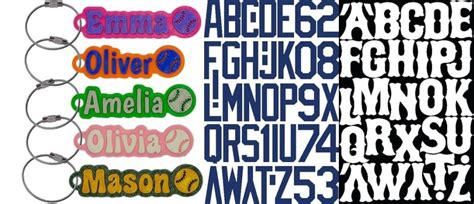
OSCPSSI Baseball Font: Your Ultimate Guide
Hey guys! Ever wondered about the awesome fonts used in baseball, especially the ones that scream “classic” and “authentic”? Well, you’re in the right place! Today, we’re diving deep into the world of the OSCPSSI Baseball Font , a popular choice for everything from team logos to jerseys. We’ll explore what makes this font so special, where you can find it (and maybe even snag it for free!), and how to use it like a pro. Whether you’re a designer, a baseball enthusiast, or just someone who appreciates a good font, this guide is for you. Let’s get started and knock this out of the park!
What is the OSCPSSI Baseball Font? Decoding the Design
Alright, let’s get down to brass tacks: what is the OSCPSSI Baseball Font? Essentially, it’s a specific style of typeface designed to evoke the spirit and look of classic baseball. Think of those old-school jerseys, the stadium signage, and the logos that have been around for decades. This font aims to capture that vintage aesthetic. It’s usually a serif or slab-serif font , meaning it has those little “feet” or “serifs” at the ends of the letter strokes. This gives it a sense of weight, stability, and, of course, that retro vibe. It’s often bold, which makes it easily readable from a distance – perfect for anything that needs to be seen across a baseball field or on a screen. The OSCPSSI font often includes variations and a distinct shape to help to recreate the authentic baseball look. This allows designers the freedom to create team branding, logos, and jerseys that instantly resonate with the sport’s traditions. Many variations of the font are available, but they all share the fundamental design principles that create this feeling. Because it is created with the visual elements of baseball in mind, this means it has the right style for jerseys, merchandise, and digital content. The goal is simple, to capture the character and history of the game. So, if you are looking to design some baseball themed material, then this font is for you. The use of the OSCPSSI Baseball Font extends beyond basic text. Its design has the capacity to include customization with different weights, styles, and added features, making it a flexible tool. This adaptability makes it a favorite for all applications, from marketing to fan merchandise.
The Key Characteristics of the Font
So, what really makes this font stand out? Let’s break down some of its core characteristics:
• Legibility: The font is designed to be easily readable, even from a distance. Its bold strokes and clear letterforms ensure that your message gets across.
• Classic Baseball Aesthetic: The design elements are all about capturing that timeless baseball look. Whether it’s a specific serif style or the overall weight of the letters, it’s crafted to feel familiar and nostalgic.
• Versatility: While it’s perfect for baseball-themed projects, the font can also be used in various applications, from logos to headlines and even body text (though it’s best suited for display purposes).
• Variety of Styles: You can often find this font in different weights and styles. This gives you more flexibility to match the style of your project.
• Historical Roots: A lot of baseball fonts draw inspiration from the logos and designs of historical teams. This makes them feel like a piece of baseball history itself.
Using the OSCPSSI Baseball Font Like a Pro: Design Tips and Tricks
Okay, so you’ve got your hands on the OSCPSSI Baseball Font. Now what? Let’s talk about how to use it to create some awesome designs. Here are some pro tips:
Choosing the Right Style and Weight
This is the first step, guys! Most versions of the font will come in different weights (light, regular, bold, etc.) and styles (italic, condensed, etc.). Choose the weight and style that best suits your project. Bold is great for headlines and logos, while lighter weights work well for body text. Italic can add a sense of motion or emphasize specific words. Play around with different combinations to see what looks best. Experimentation is important in all design work, especially with a font that has many variations. Make sure to consider the overall tone and function of your design as you determine which style works best. The font’s appearance is critical, and a correct style choice can completely change the way a design comes across.
Conclusion: Hitting a Home Run with the OSCPSSI Baseball Font
And there you have it, guys! We’ve covered everything you need to know about the OSCPSSI Baseball Font. From its classic design to where to find it (and how to use it), you’re now ready to create some amazing designs. Remember, choosing the right font is a key step in any design project. Hopefully, this guide will help you create materials that are both visually appealing and authentic. Now go forth, design some awesome baseball-themed creations, and make sure to have fun along the way! See ya!